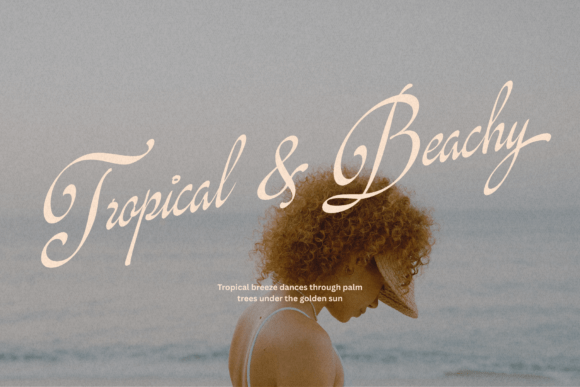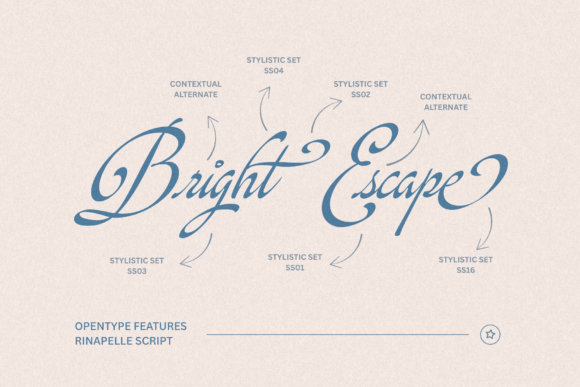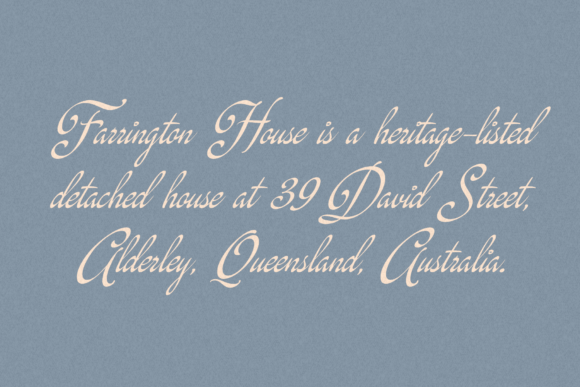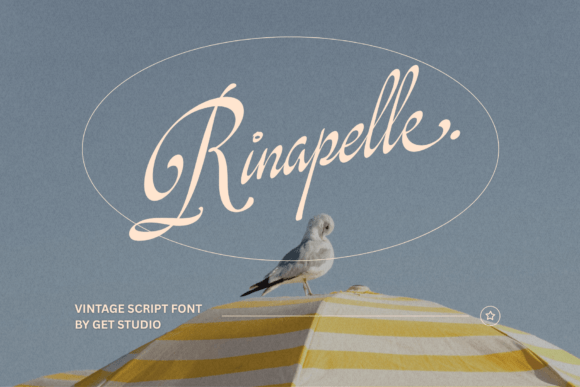
Introduction to Rinapelle Script Font
Rinapelle Script is a charming tribute to timeless elegance β€” a vintage script font that dances with grace and sophistication.
Crafted with silky-smooth curves and flowing connections, Rinapelle brings the allure of handwritten nostalgia into the modern world Whether you’re designing for luxury branding, wedding stationery, or seaside cafes, Rinapelle tells a story in every stroke.
Key Features of Rinapelle Script Font
Why Choose Rinapelle Script Font?
Rinapelle Script Font offers exceptional quality and versatility, making it a valuable addition to your design toolkit. Whether you’re creating for personal projects or commercial use, Rinapelle Script Font delivers professional results.